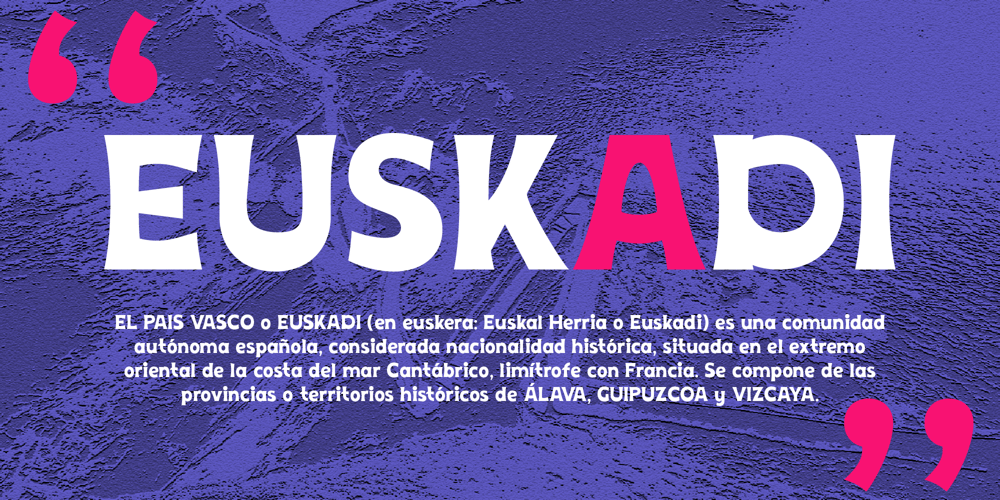
Euskadi Font Family was designed by Tatiana Yunina and published by Mira. Euskadi contains 1 styles and family package options. The Euskadi font that I have developed embodies the spirit and atmosphere of the unique signage in the Basque Country. This font serves as a distinctive reflection of the visual identity of Basque culture.Its clean and slightly curved lines evoke associations with the architecture of this region. Simultaneously, the subtle dynamics and a few playful elements add a sense of whimsy to the font, reminiscent of the lively and warm atmosphere of the streets of Bilbao or San Sebastian.Inspired by traditional elements of Basque graphics and visual culture, Euskadi invites you to immerse yourself in the authenticity of the place, where each letter becomes a bridge between modernity and the rich cultural heritage. Its structure embodies the aspiration to preserve the uniqueness and resilience of Basque identity, blending ancient roots with contemporary accents.